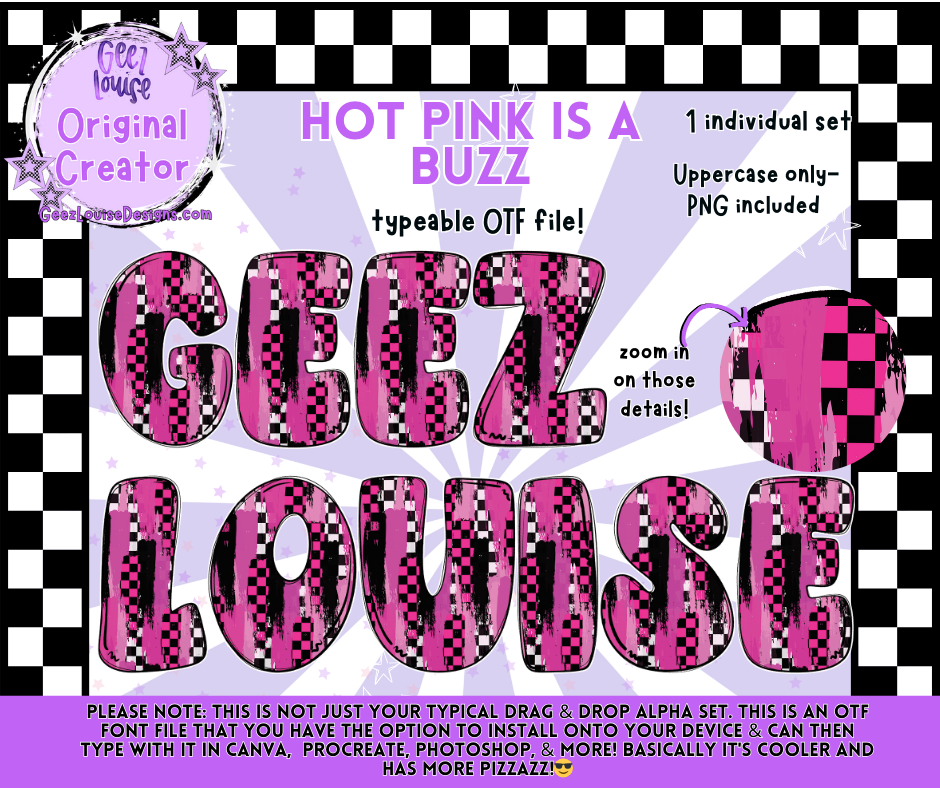
Hot Pink Is A Buzz — Typeable OTF Font + PNG
Loud. Hot. Unhinged. This font is pure pink panic in all caps. Designed for creators who want their type to shout, sparkle, and stir up trouble—in Canva, Procreate, Photoshop, or wherever you make your magic.
• 1 individual set – Bold uppercase letters in hot pink buzz
• Built for merch drops, caption challenges, mascot lore, and seasonal chaos
• Designed to make your text feel like a main character